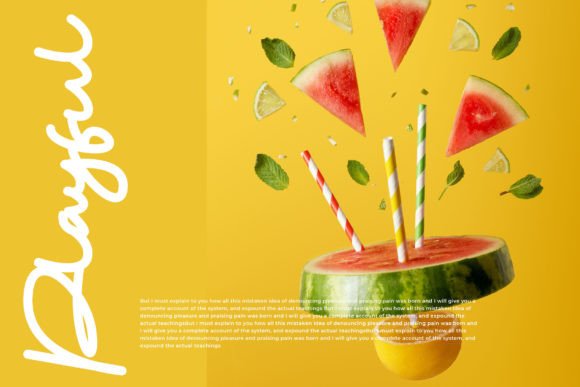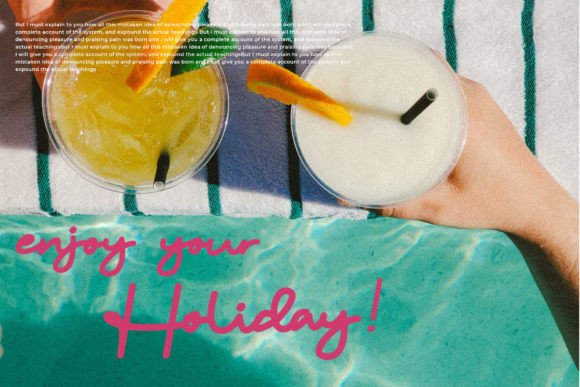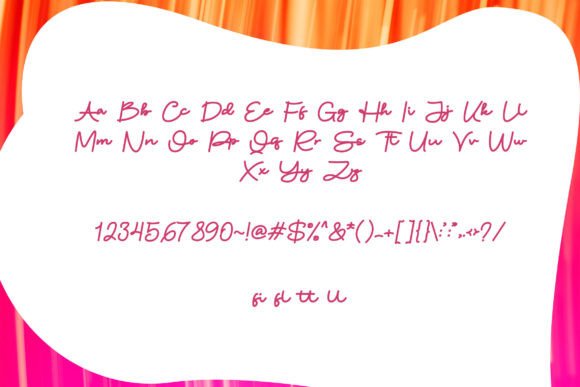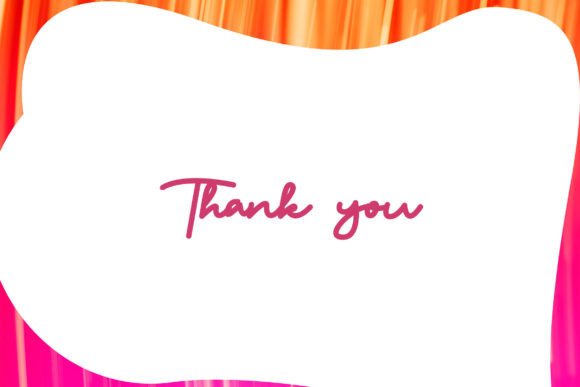
Cullomty Font
About Cullomty Font
“Cullomty is a delightful script font characterized by monoline lines, creating an impression that is not only playful but also smooth and joyful. This beautiful typeface offers versatility, making it suitable for a range of creative applications, from card designs and social media graphics to clothing branding and various products.
The charm of Cullomty lies in its playful yet refined strokes, bringing a sense of joy and whimsy to your designs. The monoline structure adds a touch of simplicity and elegance, making it suitable for diverse contexts. This font becomes a dynamic element that infuses your projects with a lighthearted and joyful aesthetic.
Whether you’re working on card designs, social media posts, clothing labels, or branding materials, Cullomty stands out as a versatile and appealing choice. Its ability to convey both playfulness and sophistication makes it suitable for a variety of design concepts, allowing it to adapt seamlessly to different projects.
Imagine Cullomty adding a playful and smooth touch to your social media graphics or bringing joy to your clothing brand’s logo. Its versatility becomes evident as it enhances the visual appeal of your designs, creating a dynamic and inviting atmosphere.
As you explore the nuances of Cullomty, you’ll find it to be more than just a font; it becomes a creative tool that brings your ideas to life with a sense of joy and style. Let Cullomty be the playful companion in your design journey, adding a touch of joy to every stroke and making your projects stand out with a delightful and monoline aesthetic.”